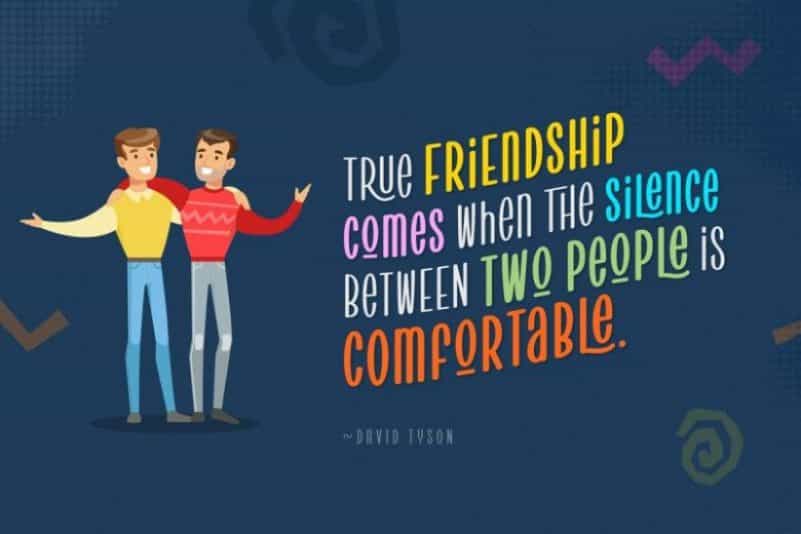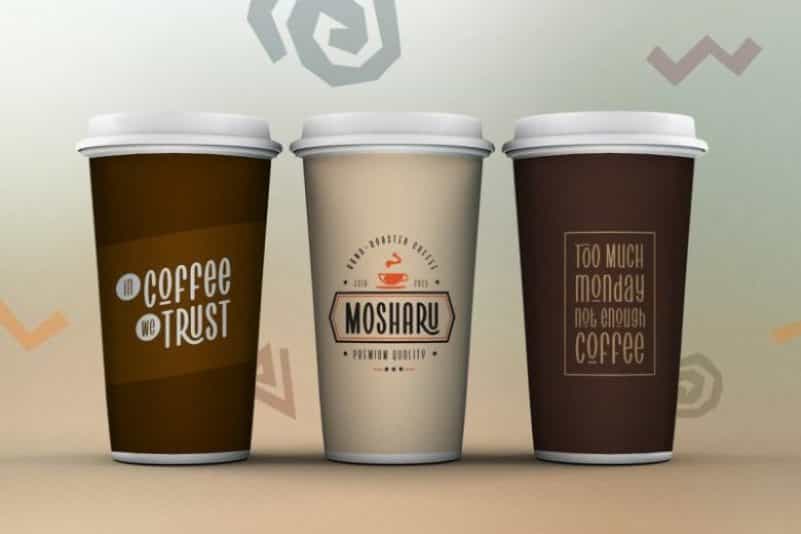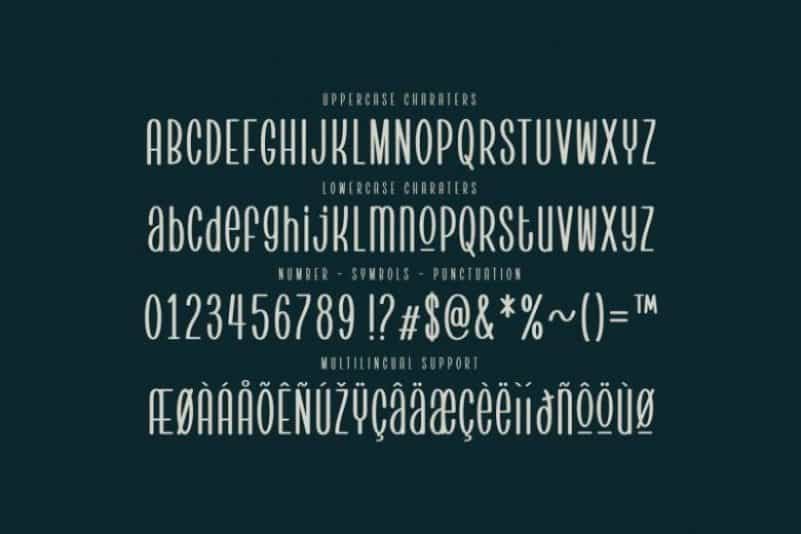
Pantura Font is a simple font which seems handwriting style font, and it is thin and playful in nature. This is playful style font. This can be used for children projects, logo design, social media post, novel jacket and any other project. It is design and shared by locomotype. It is designed in a rather plain manner while at the same time giving it that homemade look and feel.